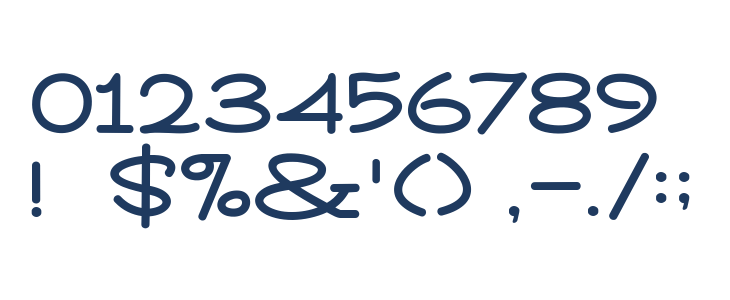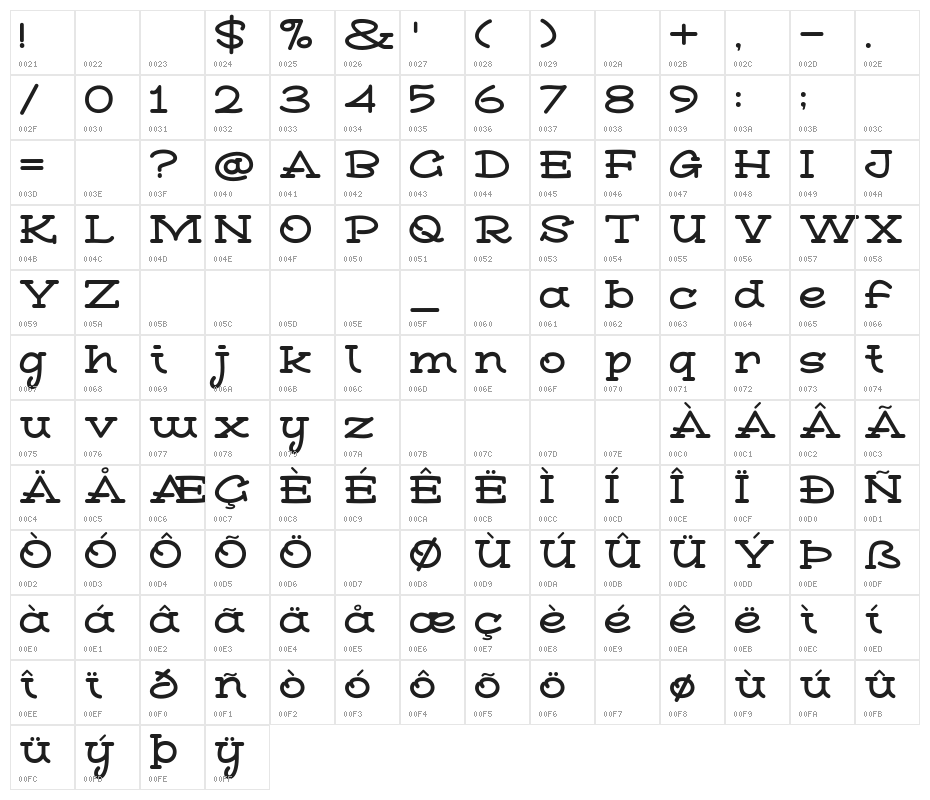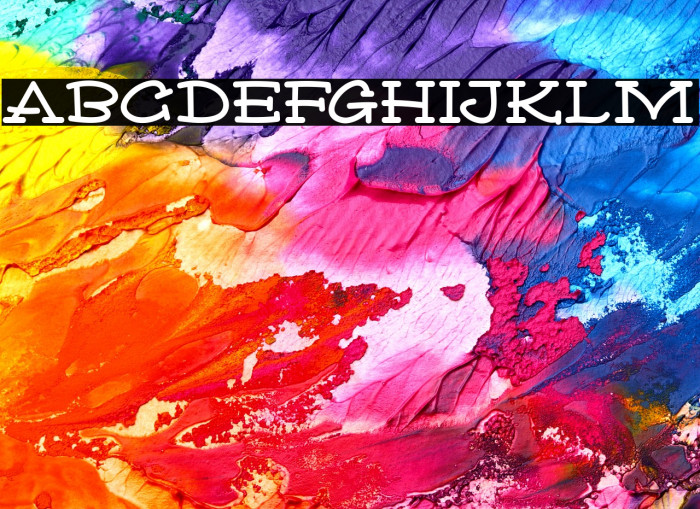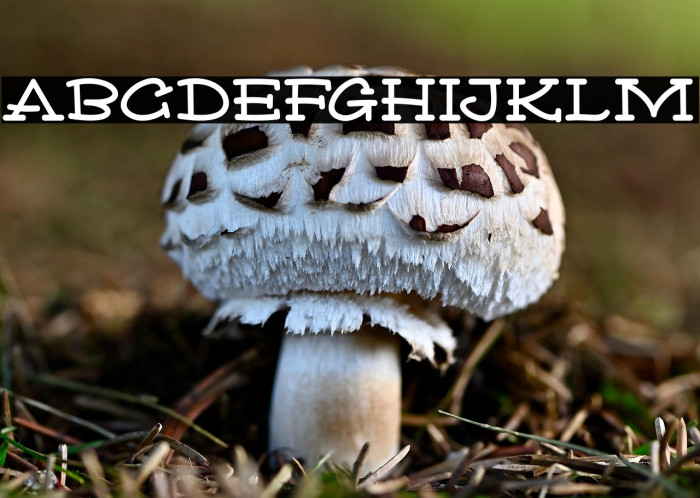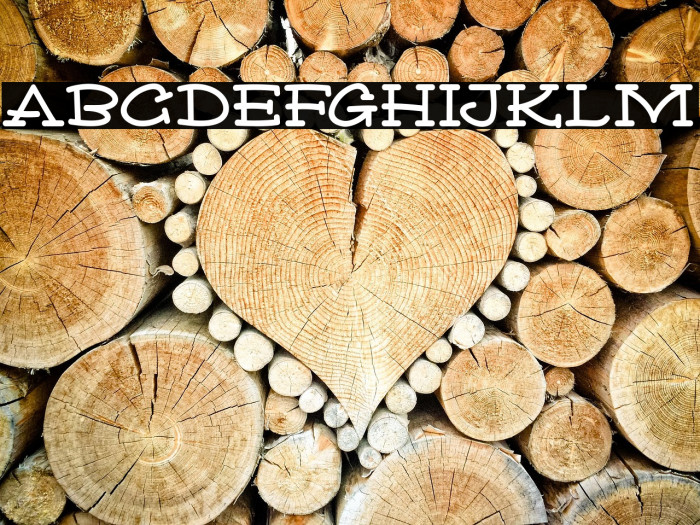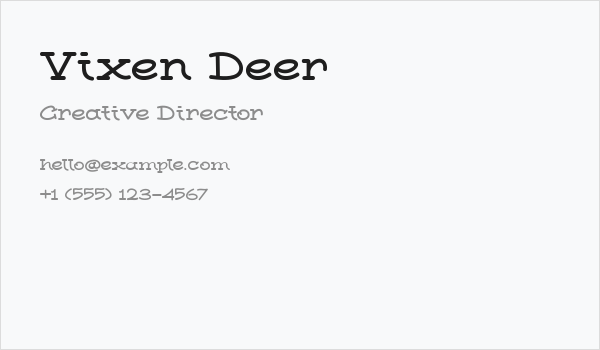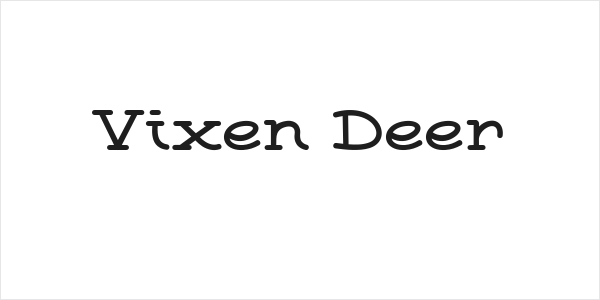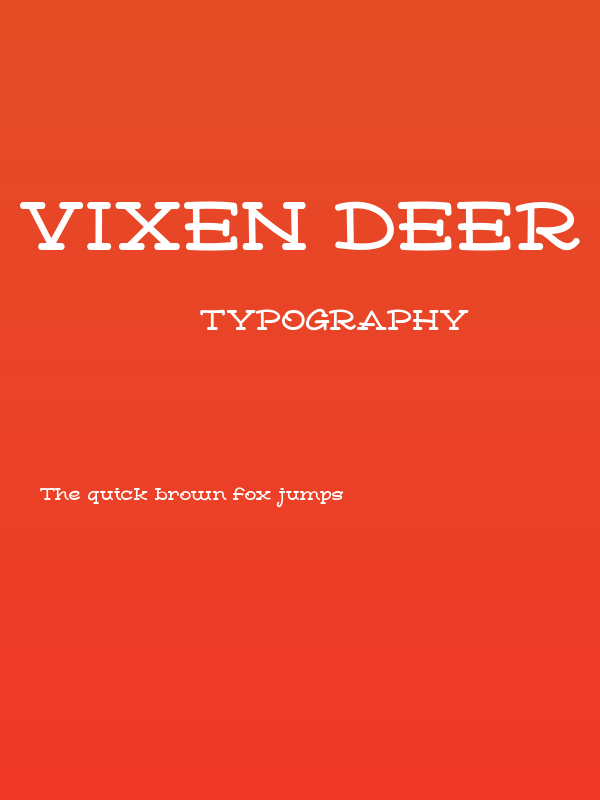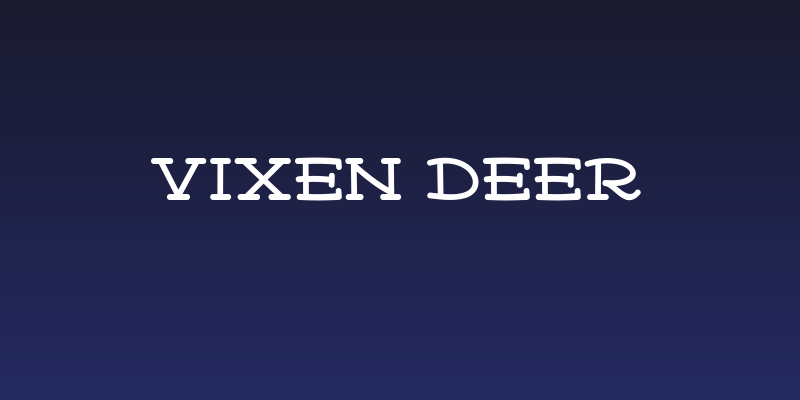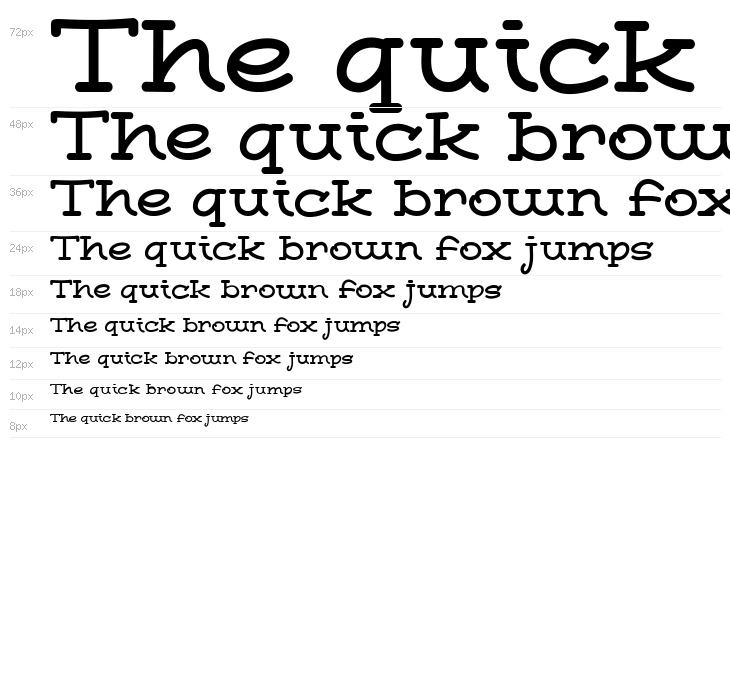
Vixen Deer Font
Vixen Deer Description
This font features a playful and whimsical design, characterized by its rounded and slightly irregular letterforms. The uppercase letters are bold and prominent, while the lowercase letters maintain a consistent style with a touch of casual flair. The numerals are clear and easy to read, complementing the overall aesthetic. Special characters are creatively designed, adding to the font's unique personality. The strokes are consistent in width, providing a balanced look across all characters. This font is ideal for projects that require a fun and approachable feel.
| Proposed Projects | Ideal for children's books, playful branding, greeting cards, and casual invitations. |